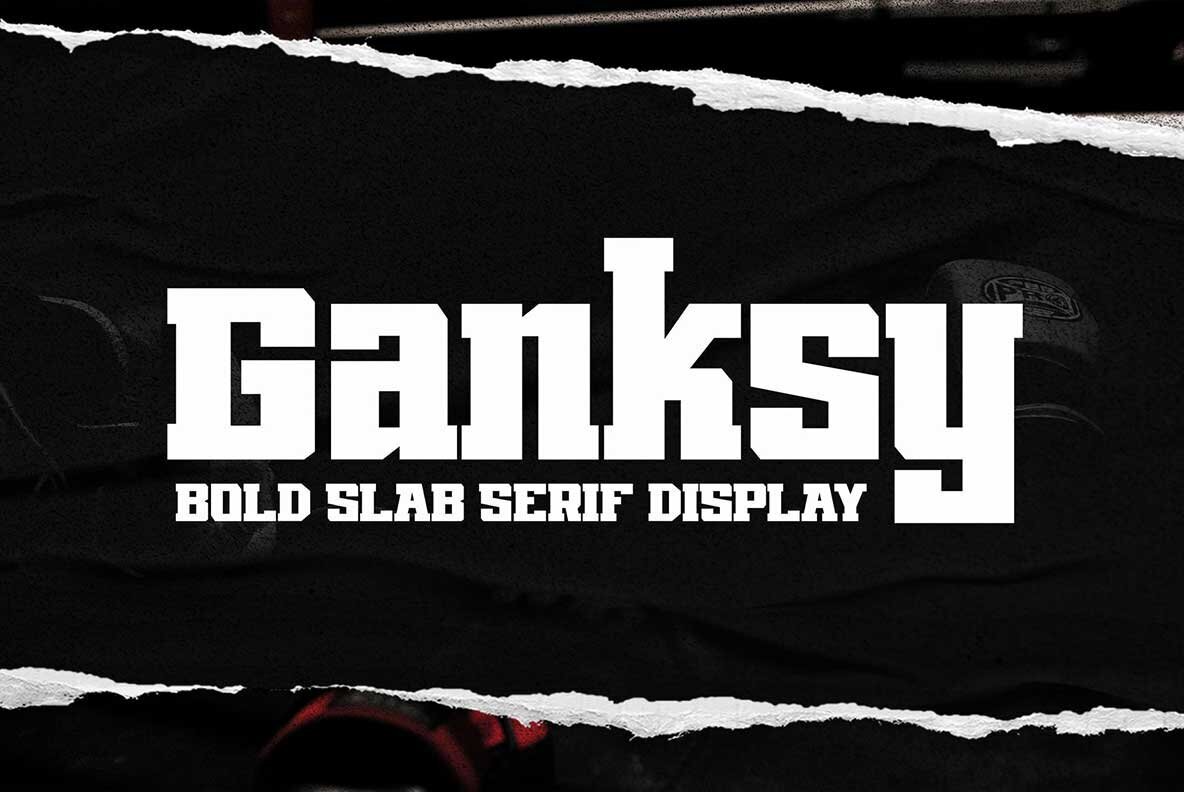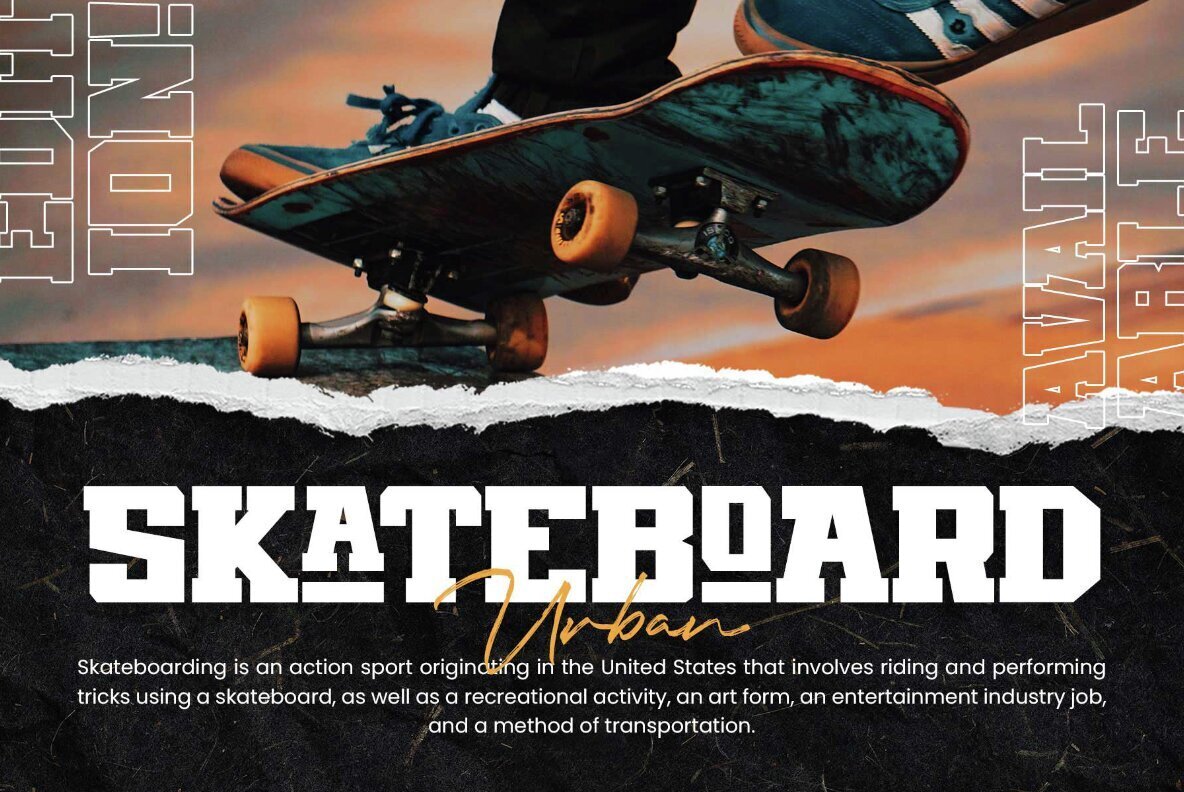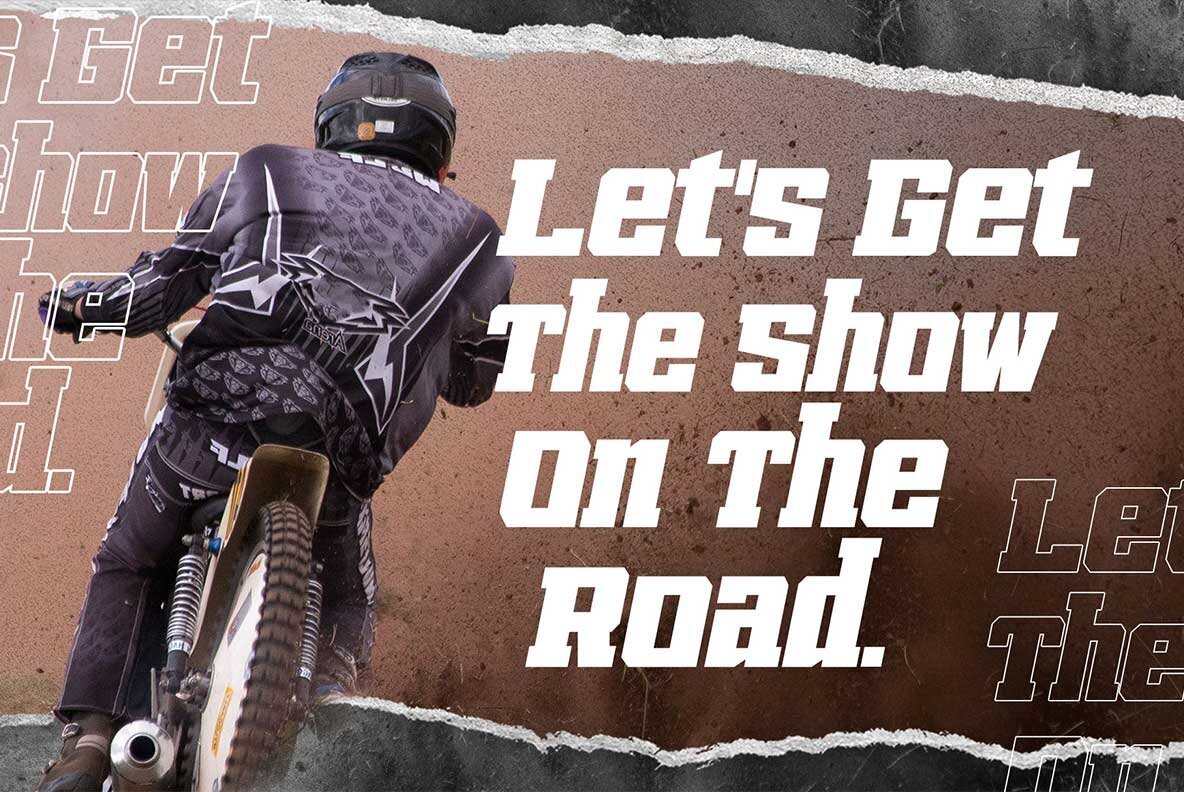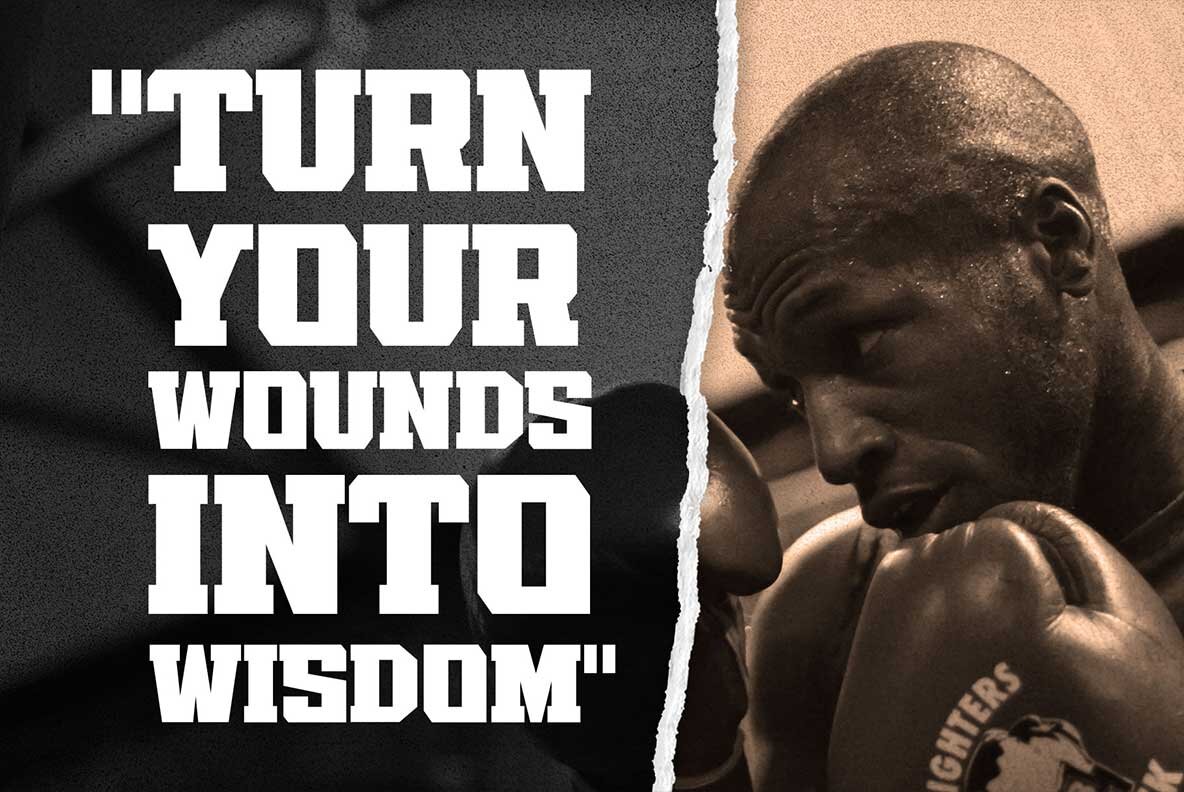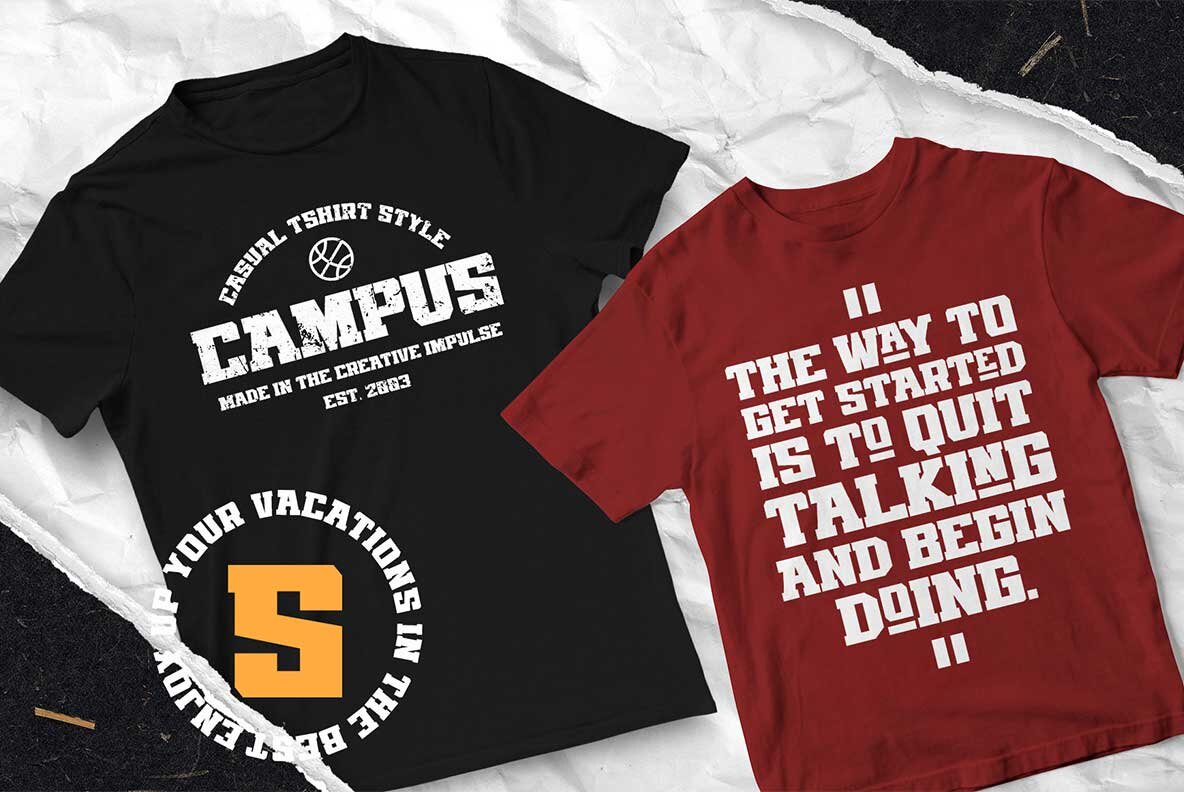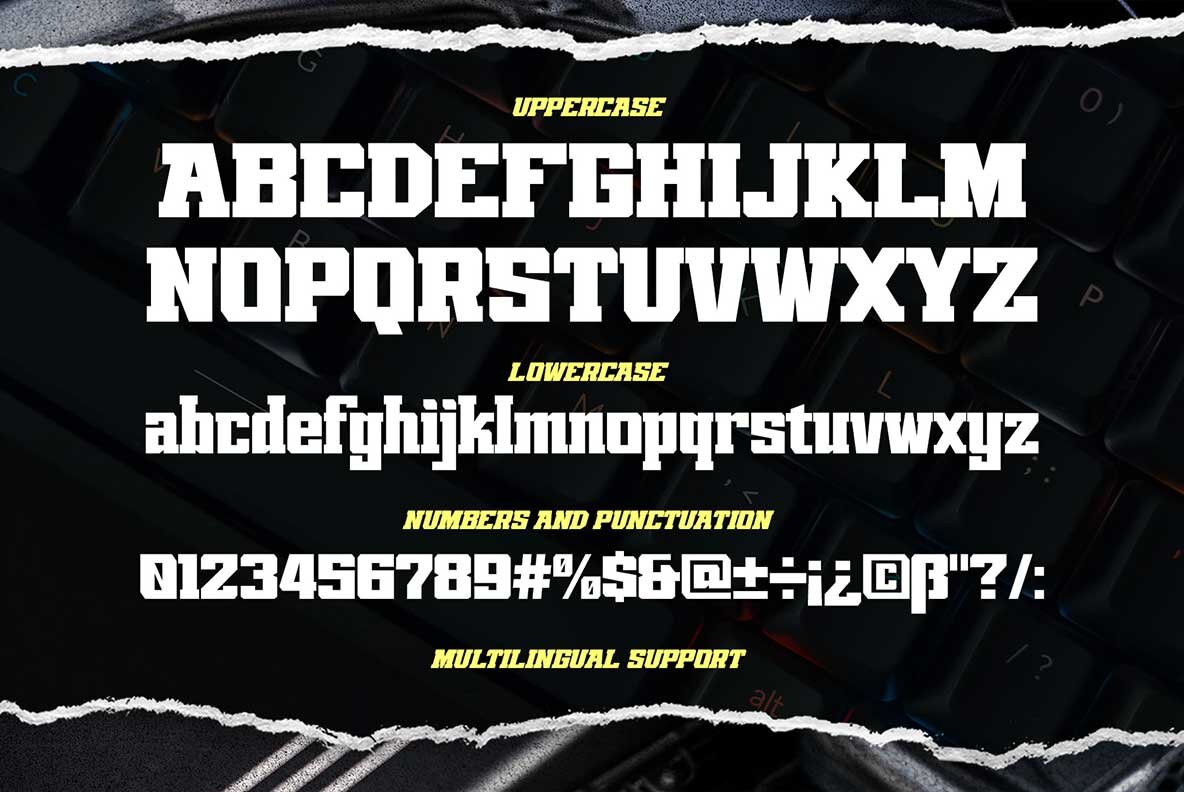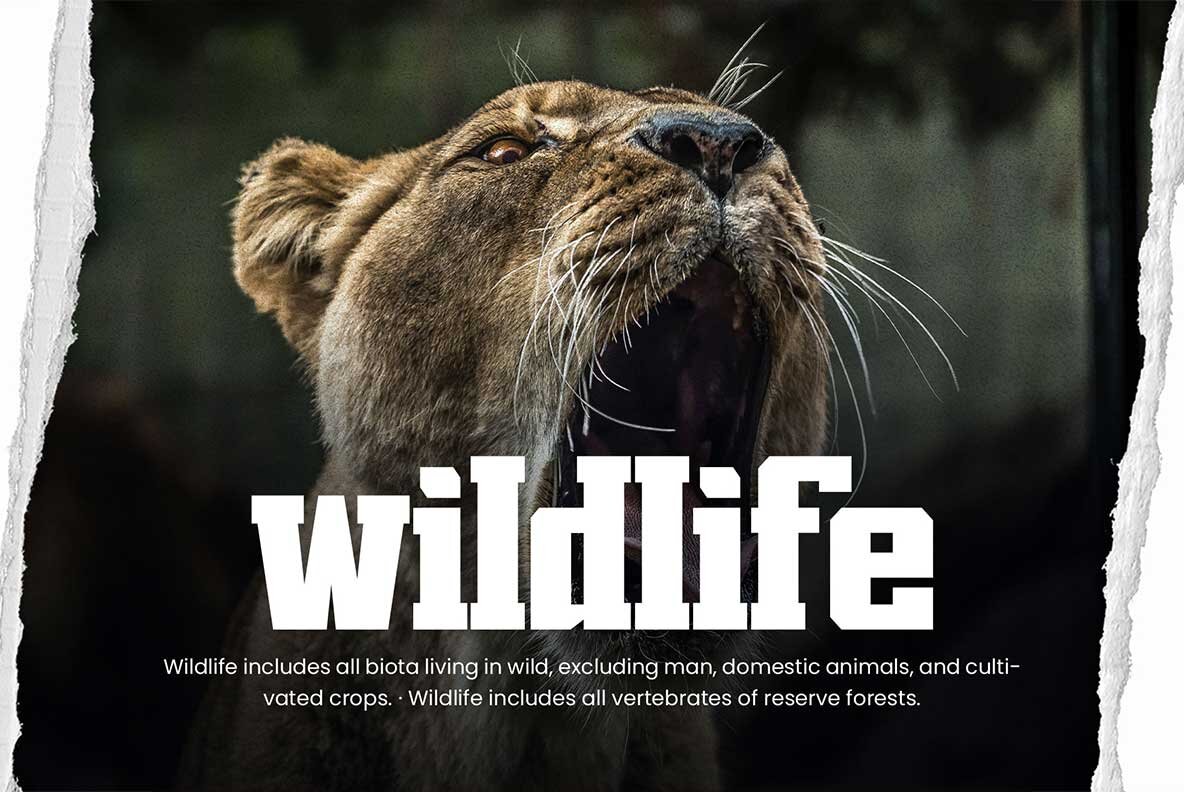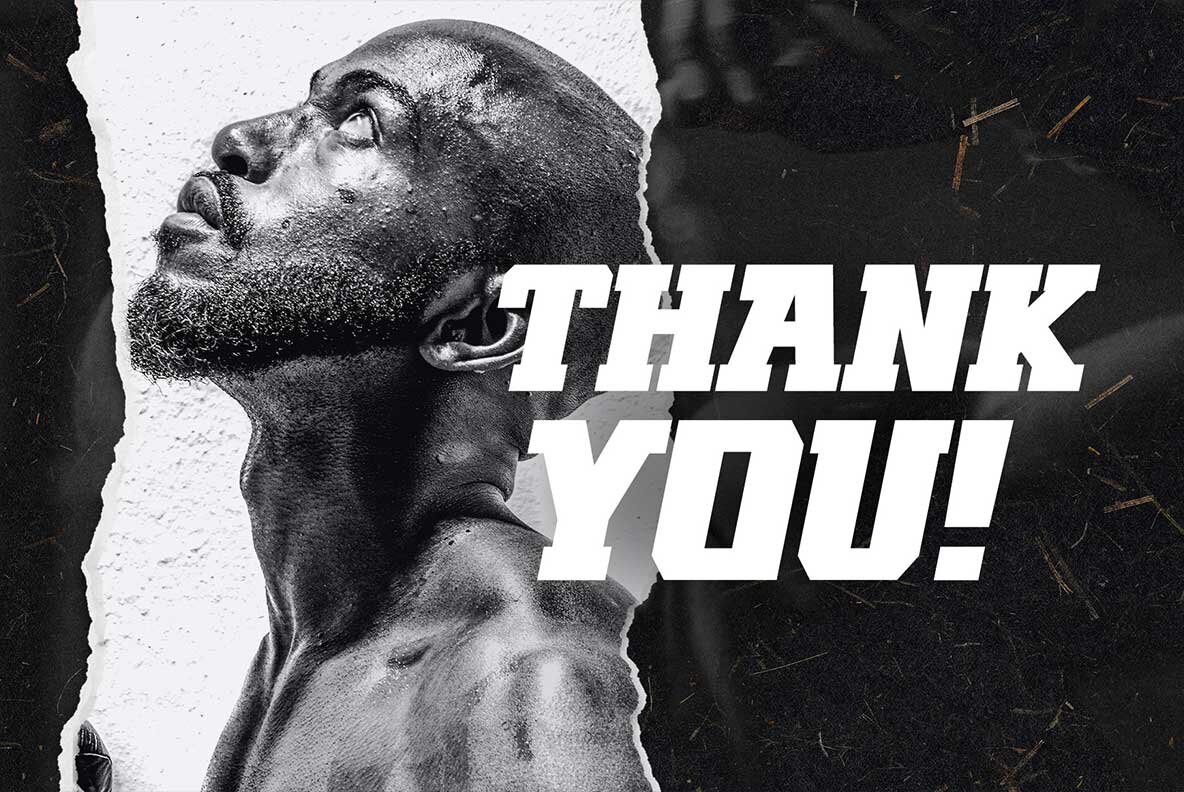
Ganksy Font
Ganksy Regular
Ganksy is a powerful slab serif font meticulously crafted for modern letterform perfection, making it ideal for display use. This typeface symbolizes bravery, strength, and victory and is versatile enough to complement various themes, including sports, animals, techno, masculinity, and youth lifestyle. Embrace the strength and elegance of Ganksy for your next project and see how it transforms your creative ideas into reality.Ganksy: Bold Slab Serif Typeface